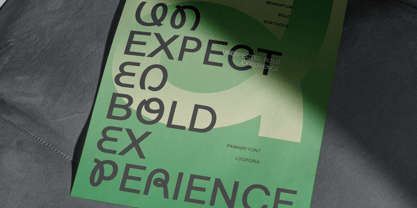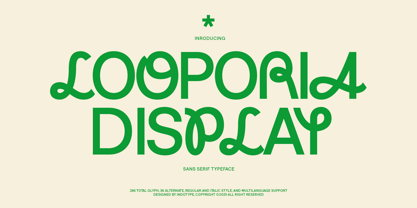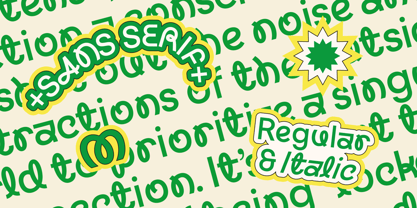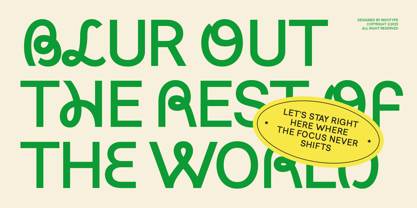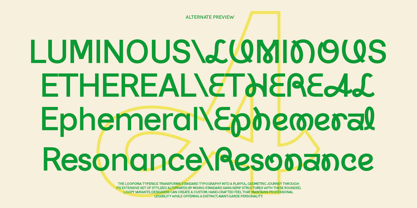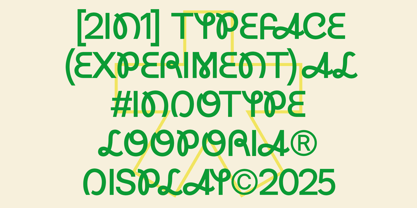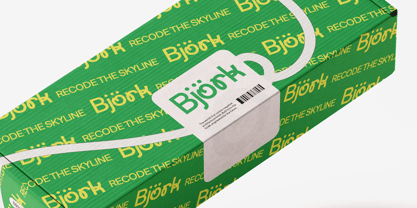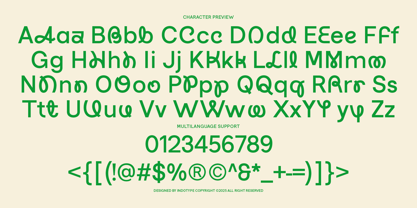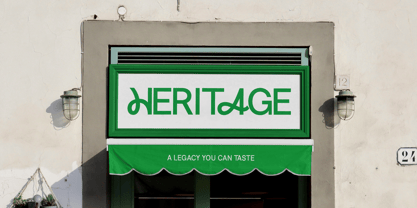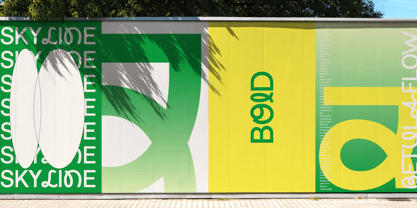
IT Looporia
by Indotype
The IT Looporia Font Family was designed by Dede Kurniawan and published by Indotype. IT Looporia contains 2 styles and family package options. More about this family
Looporia is a meticulously crafted, contemporary display sans-serif typeface designed for maximum versatility and modern appeal. It combines clean, geometric foundations with subtle humanist touches, resulting in a font that is both professional and approachable. With its open apertures and balanced proportions, Looporia ensures exceptional legibility and impact across all display applications. This comprehensive family is packed with utility, featuring 286 total glyphs, 36 stylish alternates for custom flair, and full multilingual support—making it a truly global design tool. Available in both clean Regular and dynamic Italic styles, Looporia is the perfect workhorse for branding systems, editorial headlines, web interfaces, and packaging that demands clarity with character. • Ideal for: Corporate Branding, Editorial Headlines, Web & App UI, Product Packaging, Marketing Campaigns, Multilingual Projects. • Classification: Sans-Serif, Display, Geometric, Neo-Grotesque. • Attributes: Clean, Versatile, Modern, Professional, Approachable, Global, Functional.